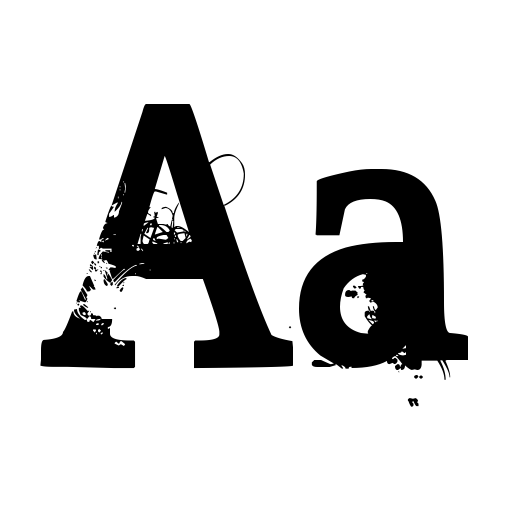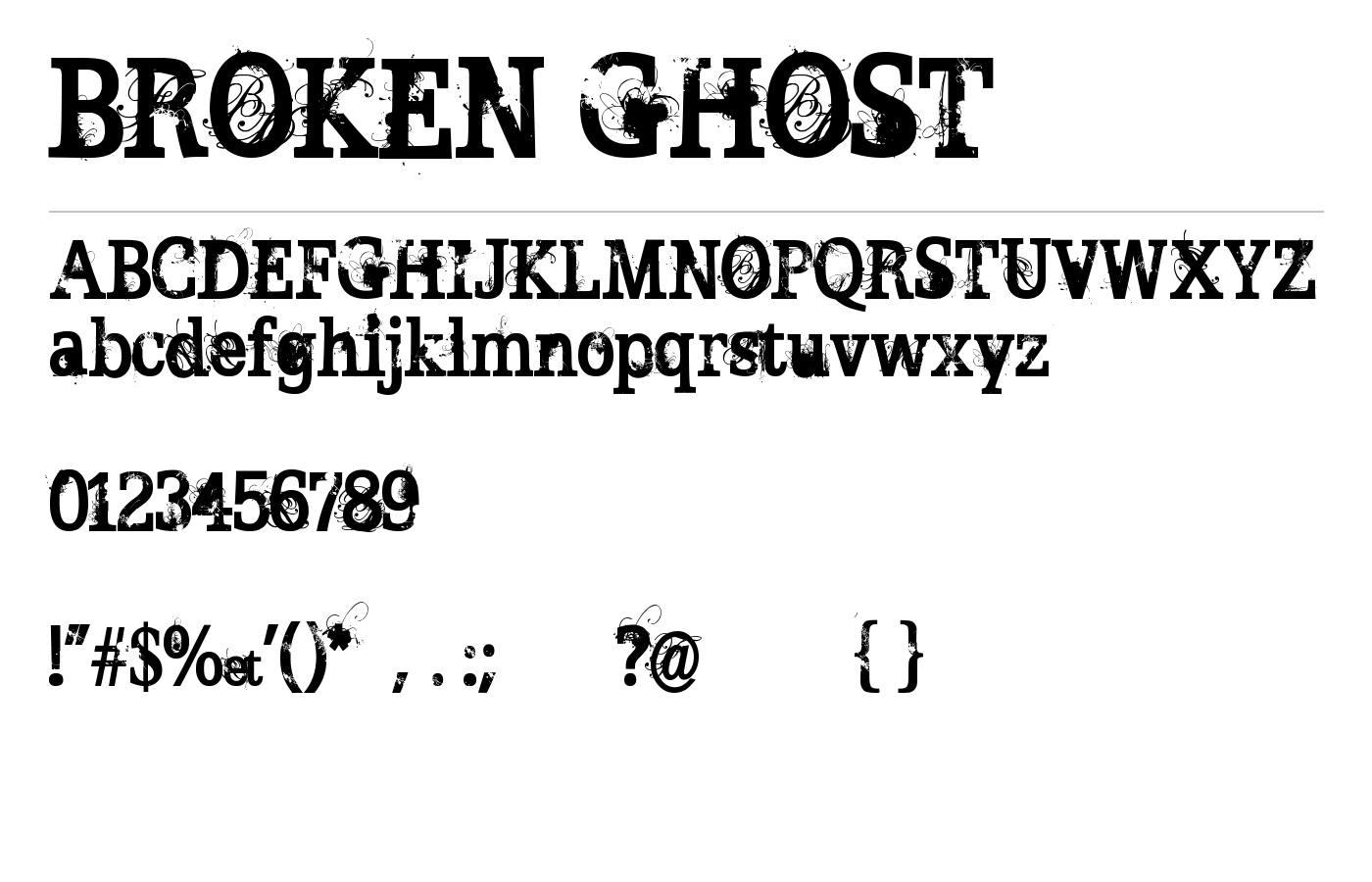
Broken Ghost is a bold slab serif font with a distressed, grungy texture that gives it a rugged, vintage feel. Its strong, blocky shapes combined with irregular ink splatters make it perfect for creating edgy, eye-catching headlines and branding with a rebellious or retro vibe. This font works well in posters, album covers, and designs aiming for a raw, artistic impact.
BROKEN GHOST Font
About BROKEN GHOST Font